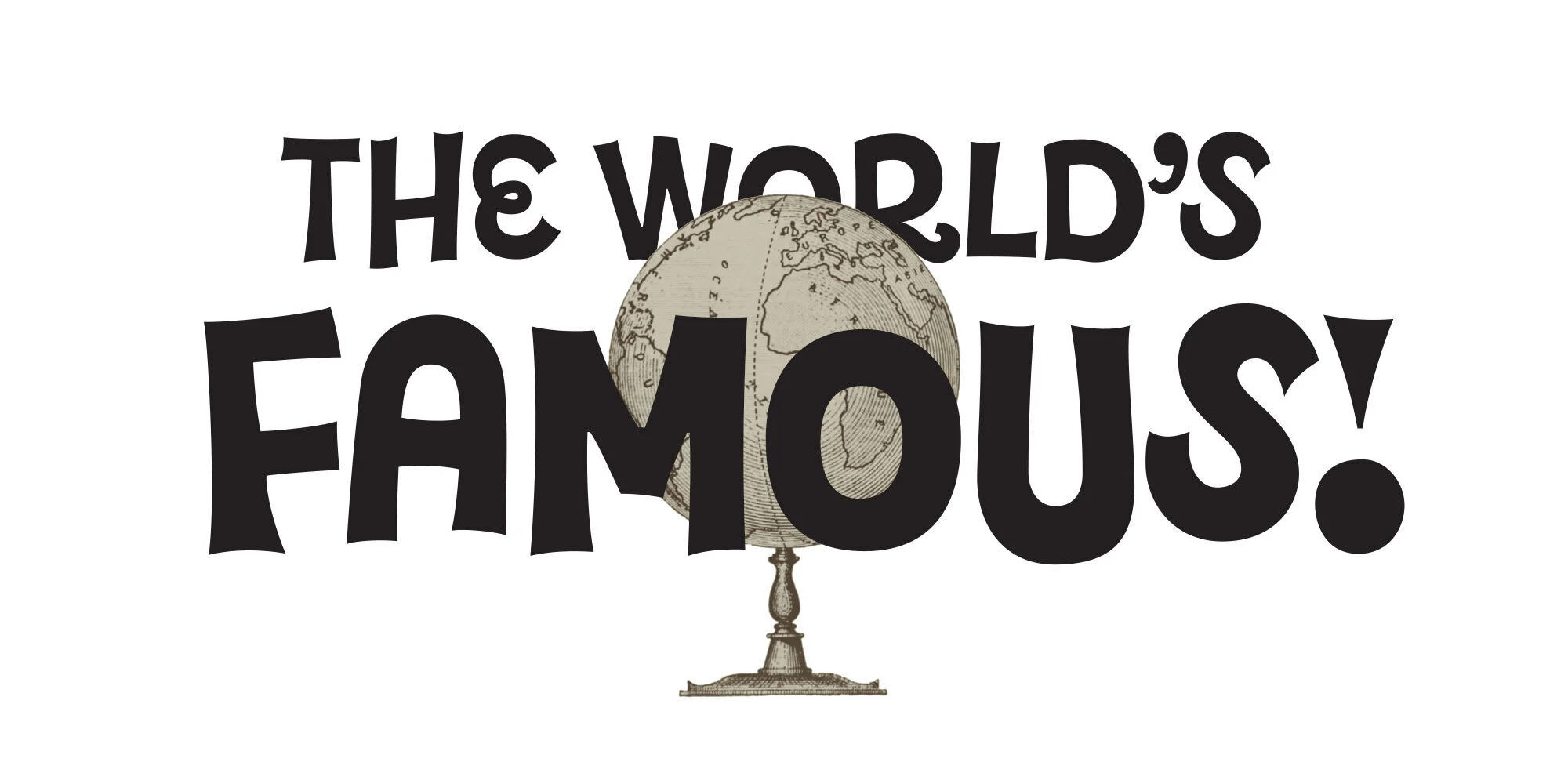
A sans-serif from HvD Fonts with a humanist character suited to text and editorial applications.
Tapir is a sans-serif typeface from the Munich-based HvD Fonts, a foundry with a consistent focus on text-optimised type. Full details were unavailable at time of cataloguing, but the name and foundry context suggest a typeface positioned for refined reading environments. HvD's track record points to careful spacing and reliable language support across Latin scripts.
HvD Fonts is known for producing humanist and text-oriented sans-serifs; Tapir fits within that tradition based on the foundry's general output, though page content was inaccessible for confirmation.